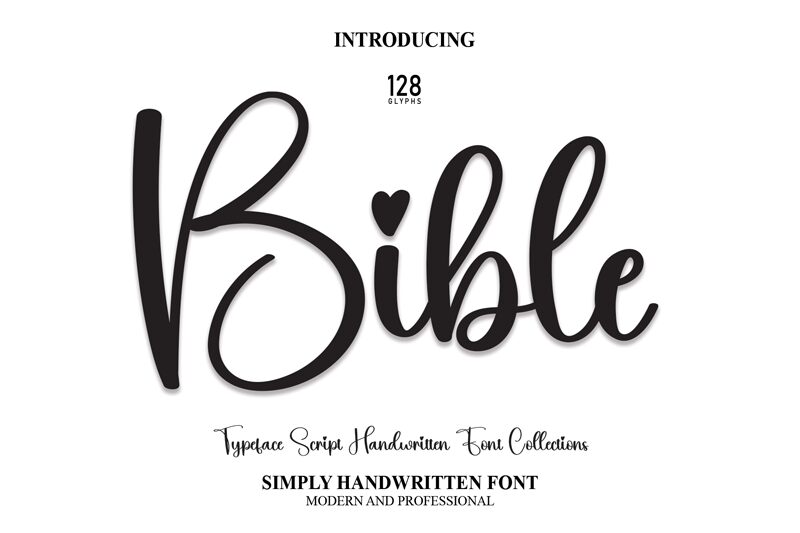
Bible
Bible, a captivating calligraphy font designed by Scratchones, adds an elegant touch to any project.
With its delicate semi-light weight, this font gracefully imbues romanticism into wedding invitations and love letters. Its flowing strokes and intricate details make it perfect for creating stunning Valentine's Day themed designs. Bible is also well-suited for sophisticated branding materials, such as luxury fashion or beauty products.
Whether you're looking to evoke timeless romance or elevate your brand's aesthetic, Bible is the ideal choice for adding an enchanting and refined feel to your projects.
With its delicate semi-light weight, this font gracefully imbues romanticism into wedding invitations and love letters. Its flowing strokes and intricate details make it perfect for creating stunning Valentine's Day themed designs. Bible is also well-suited for sophisticated branding materials, such as luxury fashion or beauty products.
Whether you're looking to evoke timeless romance or elevate your brand's aesthetic, Bible is the ideal choice for adding an enchanting and refined feel to your projects.